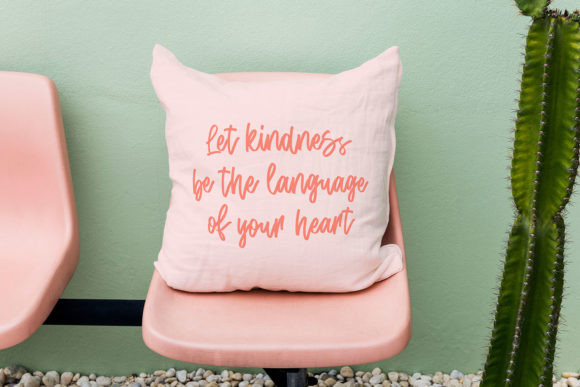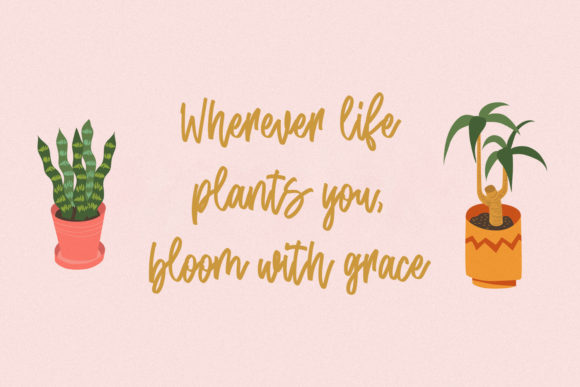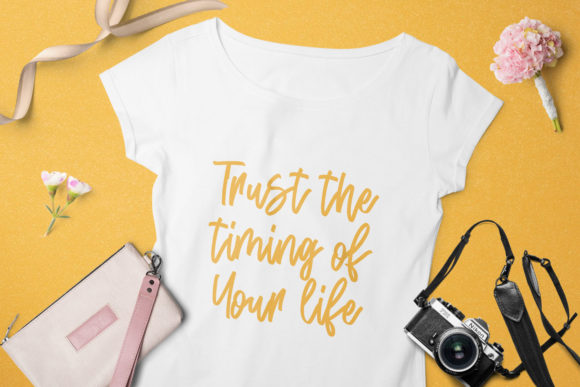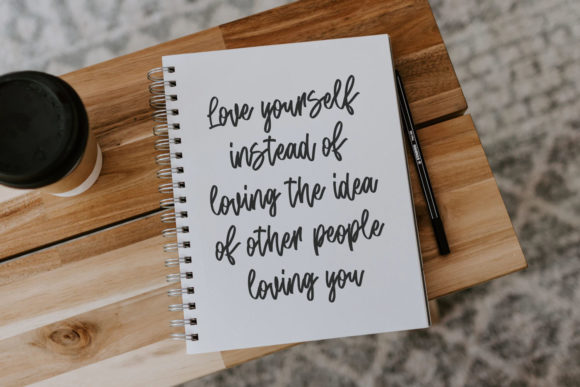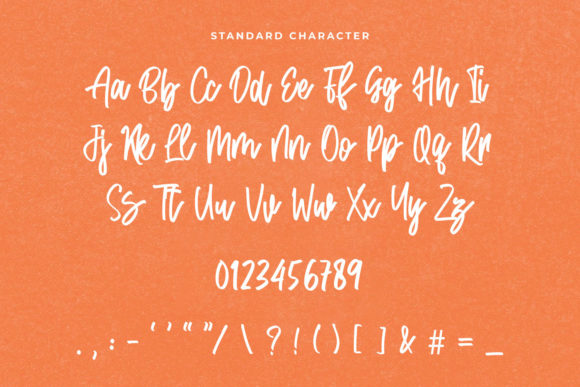
Honey Jones Font
Honey Jones is a natural and stylish handwritten font. It will add an authentic touch to any design idea. Add it to your most creative ideas and notice how it makes them come alive!